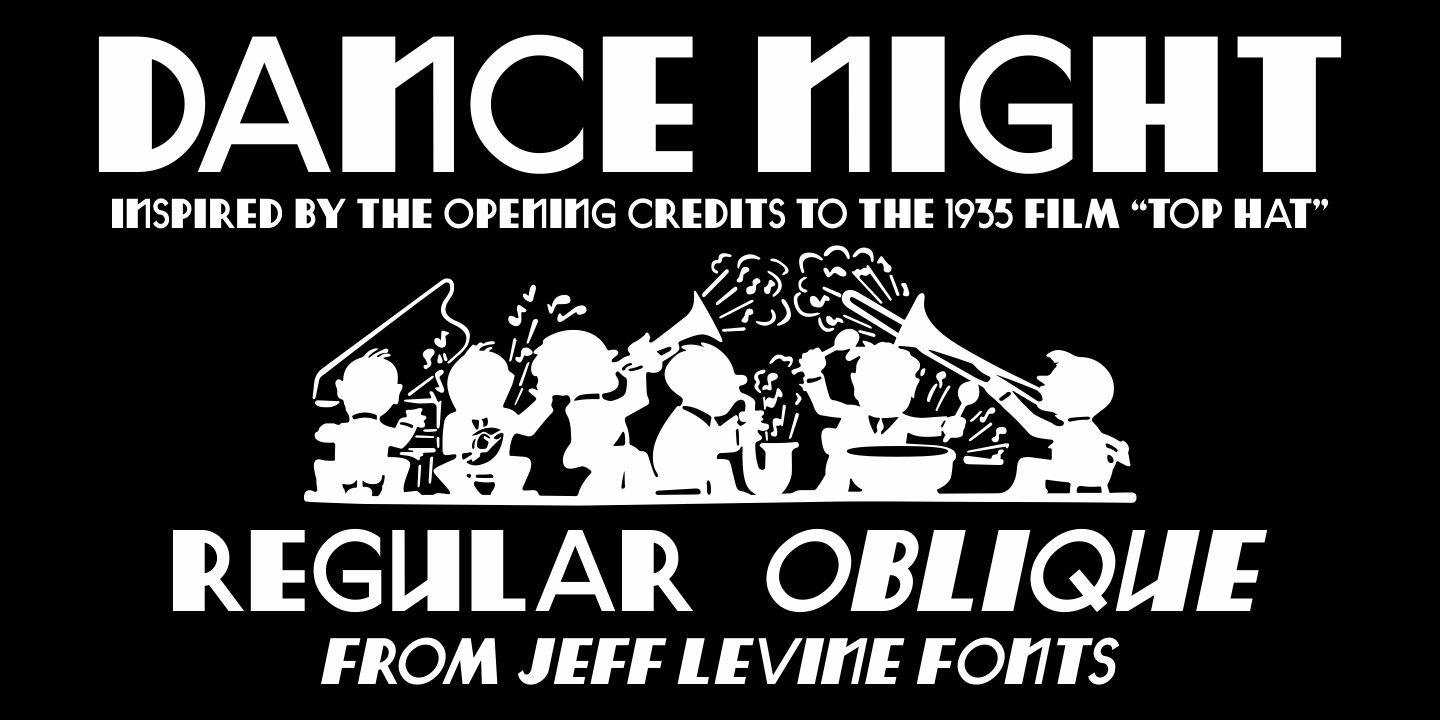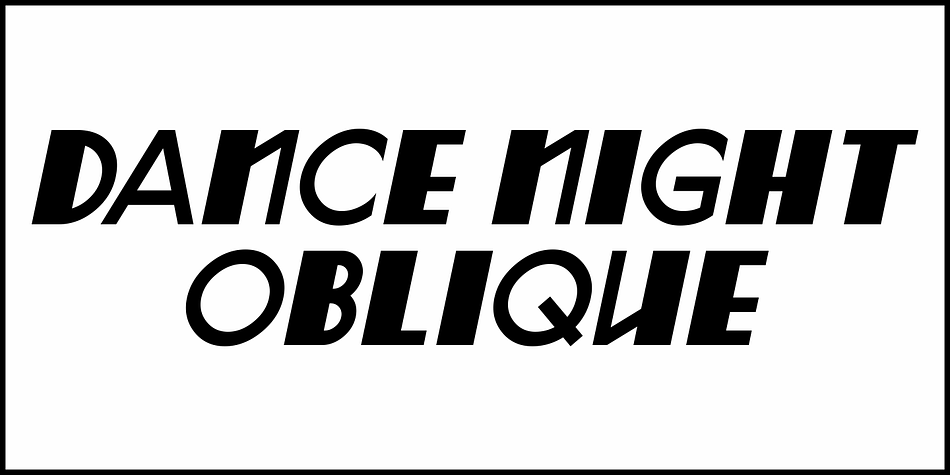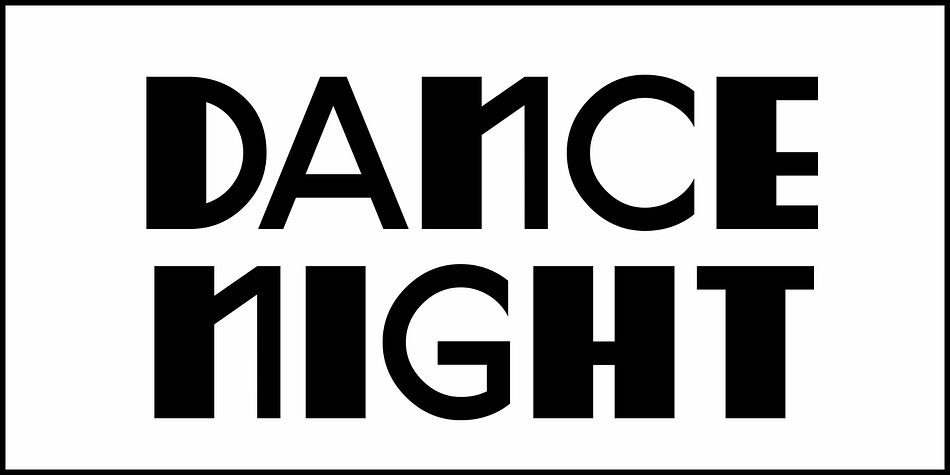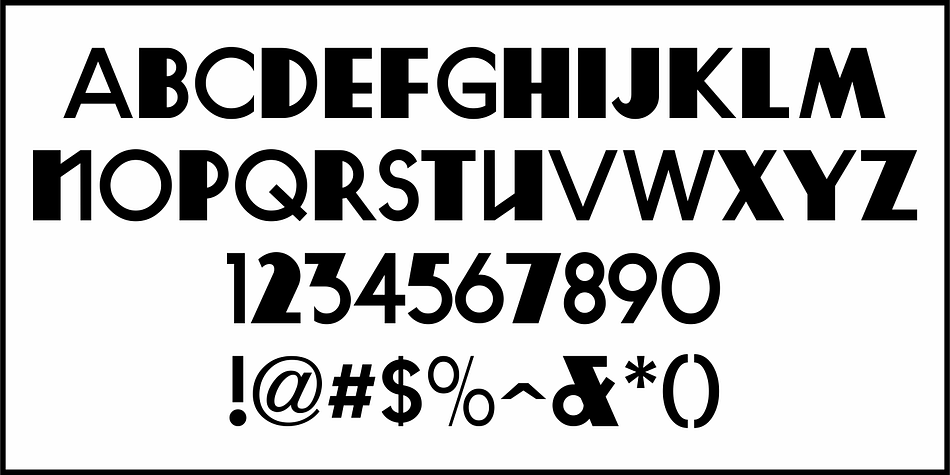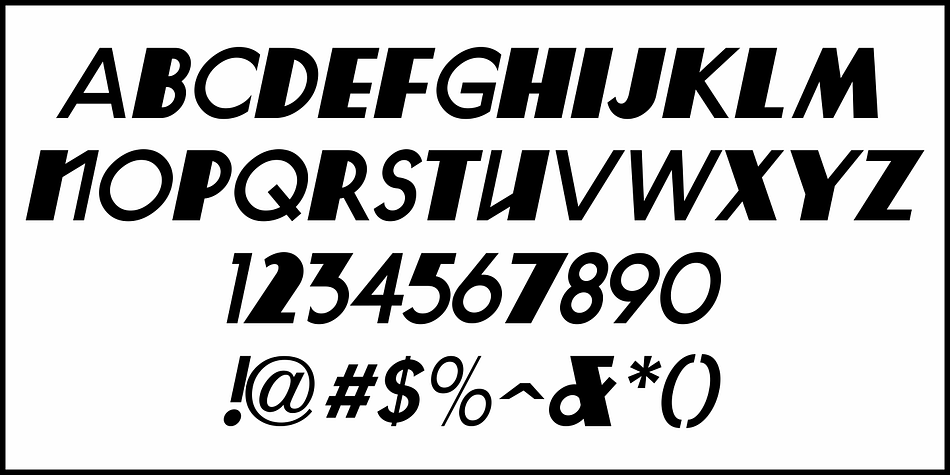
DANCE NIGHT JNL
Designed by Jeff Levine, Dance Night JNL is an art deco font family. This typeface has two styles and was published by Jeff Levine Fonts.
Take a thick-and-thin Art Deco alphabet and mix in a handful of traditional sans characters.  The results are what became the opening title and credits for the 1935 Fred Astaire-Ginger Rogers musical “Top Hat”.
This novelty mix of two type designs is now available as Dance Night JNL in both regular and oblique versions.